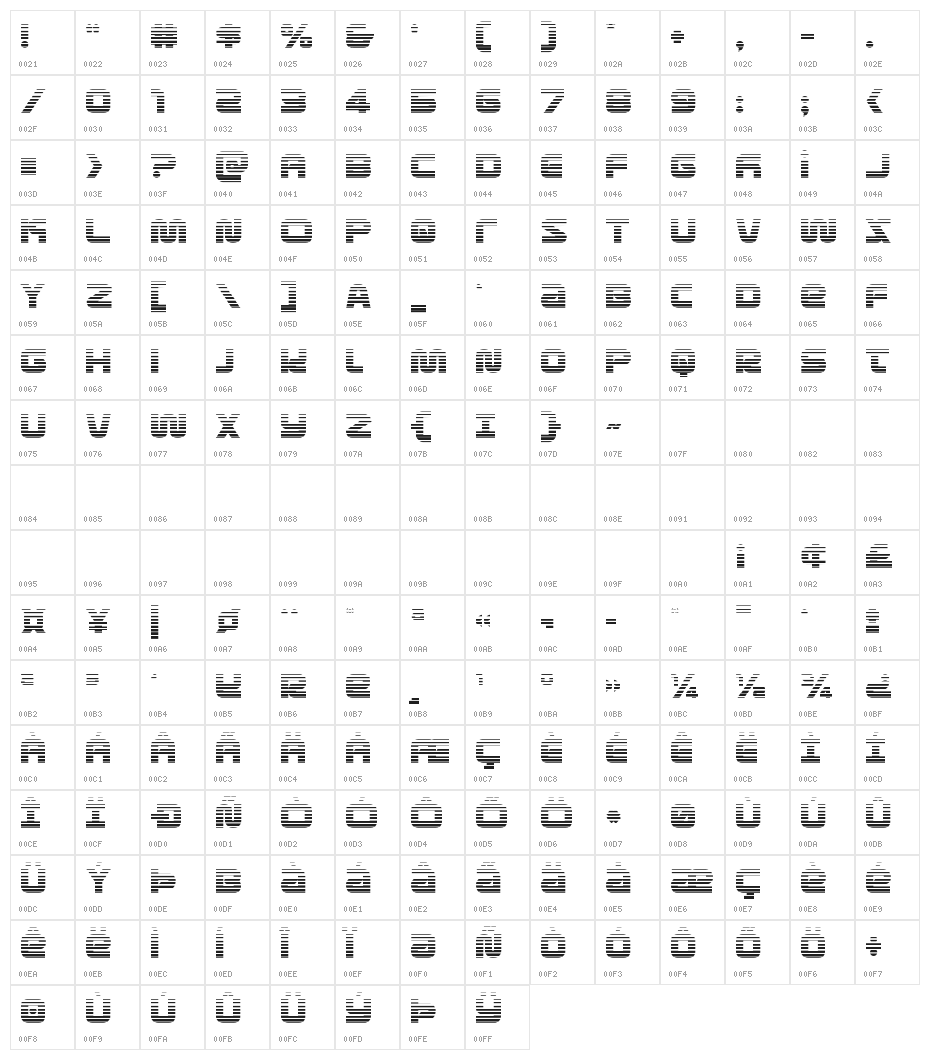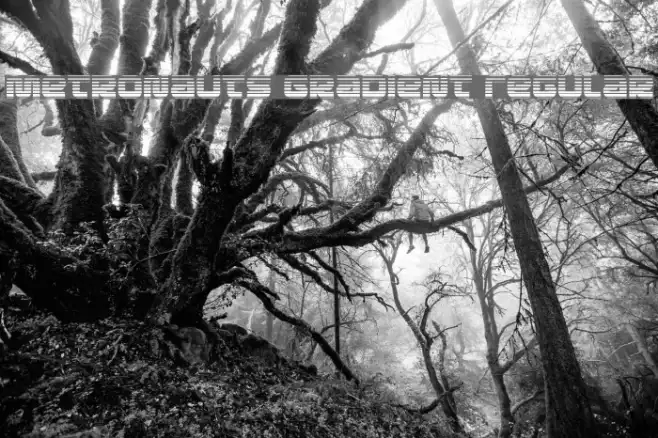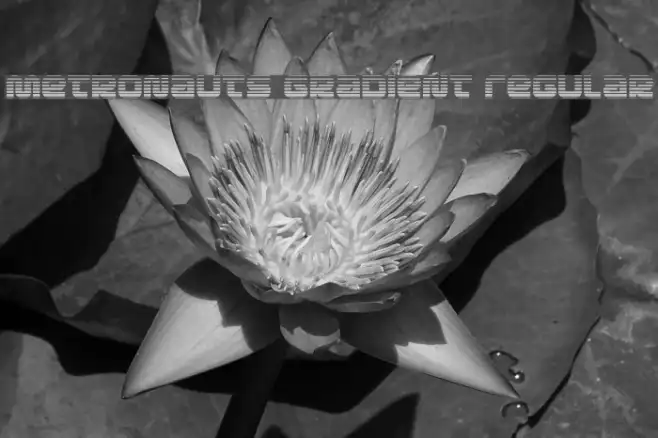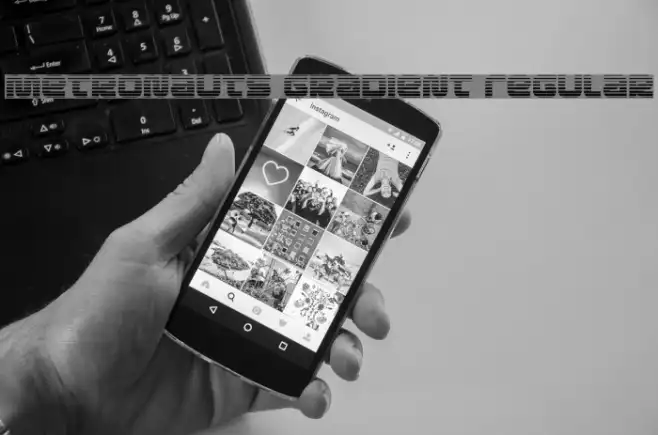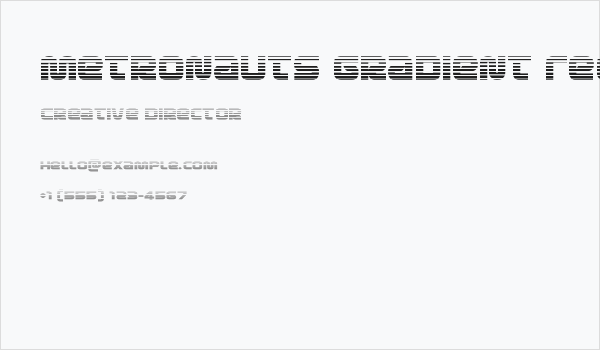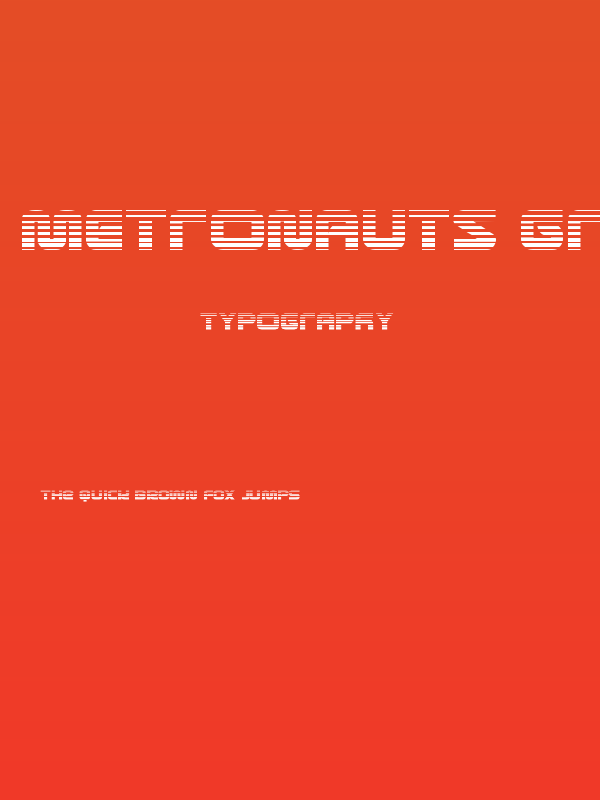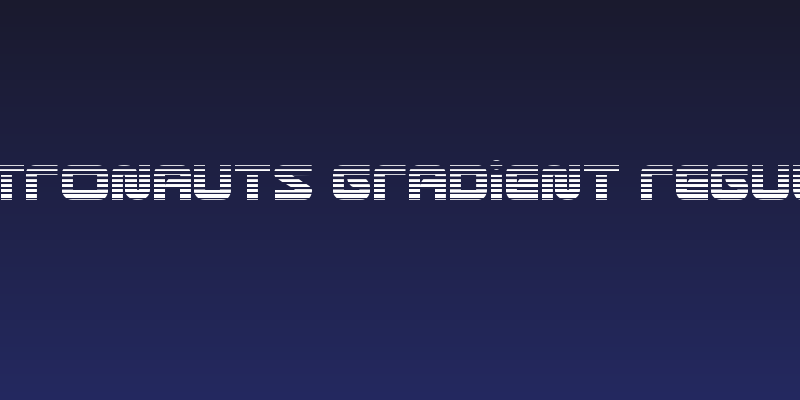
Metronauts Gradient Regular Font
Metronauts Gradient Regular Description
This font features a unique, futuristic design with horizontal lines creating a gradient effect across each character. The uppercase and lowercase letters, as well as numbers and special characters, are constructed with a series of parallel lines that give a sense of movement and modernity. The geometric structure is consistent throughout, providing a cohesive and striking appearance. This style is highly decorative, making it ideal for projects that require a bold and eye-catching typeface.
| Proposed Projects | Ideal for sci-fi themed posters, modern branding, tech-related logos, and digital artwork. |